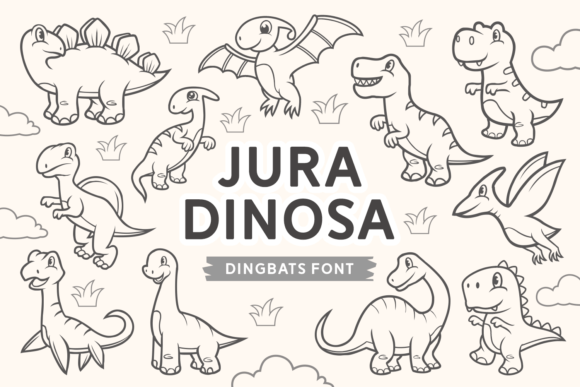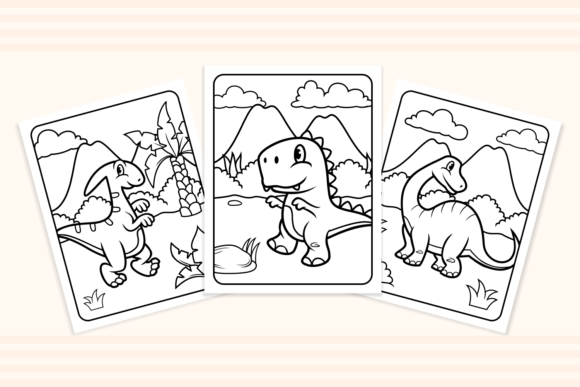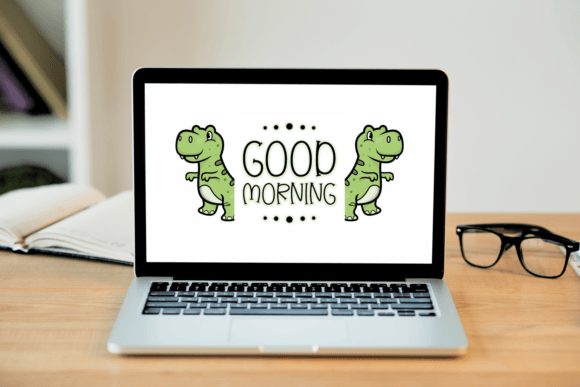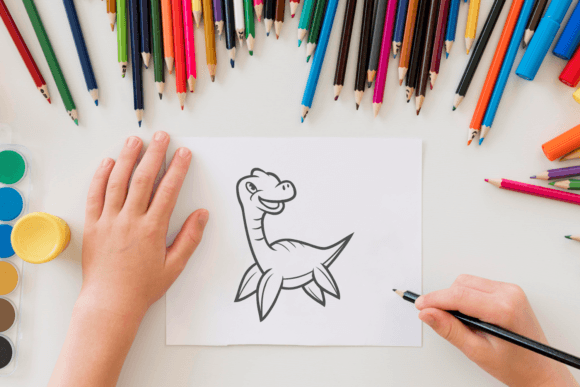
Add a touch of class to your work with the Jura Dinosa Font, a truly exceptional typeface. Jura Dinosa is a captivating dingbat font that takes you on a prehistoric journey filled with charming dinosaurs.
Embrace the enchantment of the prehistoric world with Jura Dinosa, the ultimate dingbat font for dinosaur enthusiasts and creative professionals alike. Unleash your creativity, transport your audience to a time long ago, and make your designs roar with excitement!
Jura Dinosa’s playful charm makes it ideal for children’s books, playful branding for businesses targeting a younger audience, or decorative elements in invitations and posters. It’s less suitable for body text or UI elements where high readability is paramount. The whimsical nature of the dinosaurs might overwhelm more serious contexts.
To balance Jura Dinosa’s fun energy, pair it with a clean sans-serif like Open Sans for readability in supporting text, or a classic serif like Garamond for a touch of sophistication. For a more modern feel, consider pairing it with a geometric sans-serif like Futura.
The font’s overall personality is undeniably playful and friendly, injecting a sense of lighthearted adventure into any design.